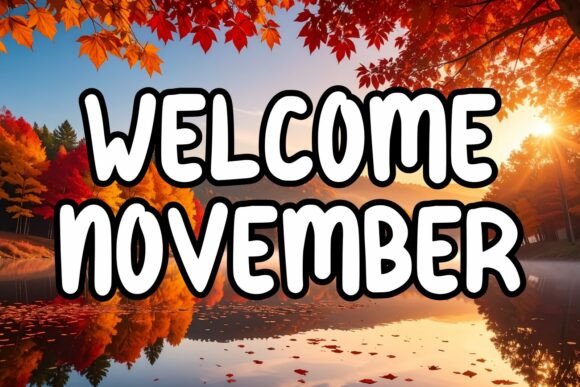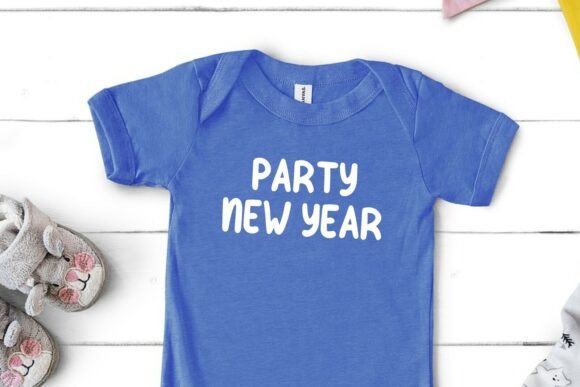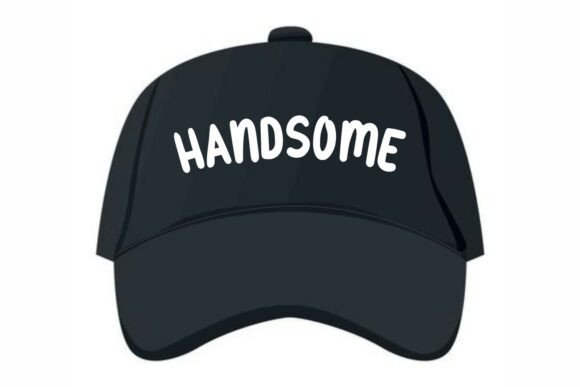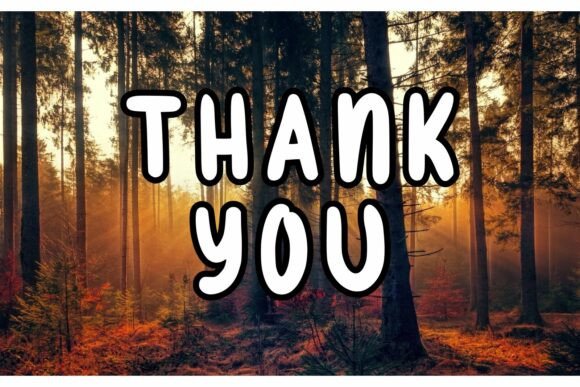
Embracing the Cozy Charm of Autumn with the Perfect Seasonal Font
As the leaves change colors and the air grows crisp, the autumn season brings with it a sense of warmth, coziness, and festivity. For designers and crafters looking to capture the essence of fall in their projects, having the right typography is essential. This is where the Autumn Season Font comes into play—a bold and cheerful display typeface specifically designed to embody the spirit of the season.
The Essence of the Autumn Season Font
The Autumn Season Font stands out with its rounded, thick letterforms that exude a playful and approachable vibe. This typeface strikes the perfect balance between simplicity and personality, making it an excellent choice for a wide range of autumn-themed projects. Whether you’re working on posters, invitations, seasonal branding, children’s projects, social media graphics, or holiday promotions, this font infuses your designs with a sense of joy and creativity.
Key Features of the Autumn Season Font
- Bold and Cheerful: The font’s bold nature ensures that your designs command attention, while its cheerful vibe keeps the atmosphere light and engaging.
- Playful and Approachable: The rounded letterforms give the font a friendly feel, making it perfect for projects aimed at a younger audience or those looking to convey a sense of warmth.
- Strong Readability: Despite its playful nature, the Autumn Season Font maintains strong readability, ensuring that your message is conveyed clearly and effectively.
- Versatile: Its friendly, bold, and versatile aesthetic makes it suitable for a wide array of creative work, from autumn-themed designs to playful projects.
Applications of the Autumn Season Font
The versatility of the Autumn Season Font makes it an invaluable asset for designers and crafters working on a variety of projects. Here are some ideal applications:
- Posters and Invitations: Create eye-catching posters and invitations for fall events, such as harvest festivals, Halloween parties, or Thanksgiving gatherings.
- Seasonal Branding: Infuse your autumn-themed products or services with a distinctive brand voice using this font.
- Children’s Projects: The playful nature of the font makes it perfect for children’s books, educational materials, or activity sheets centered around the fall season.
- Social Media Graphics: Elevate your social media presence with engaging fall-themed graphics that capture the season’s warmth and coziness.
- Holiday Promotions: Use the font to create compelling promotional materials for holiday sales, special offers, or seasonal events.
Tips for Using the Autumn Season Font
To maximize the impact of the Autumn Season Font in your designs, consider the following tips:
- Pair with Complementary Fonts: Combine the Autumn Season Font with simpler fonts to create contrast and enhance readability.
- Experiment with Colors: While the font itself conveys warmth, experimenting with autumnal colors like orange, red, and yellow can further emphasize the seasonal theme.
- Play with Textures: Adding subtle textures that mimic the natural elements of fall, such as leaves or wood, can add depth to your designs.
The Autumn Season Font is more than just a typeface—it’s a design tool that brings the warmth, coziness, and playfulness of the fall season to your projects. Its bold, cheerful, and versatile nature makes it an excellent choice for designers and crafters looking to create engaging and festive designs. By incorporating this font into your workflow, you can ensure that your autumn-themed projects stand out with charm and energy, perfectly capturing the essence of the season.